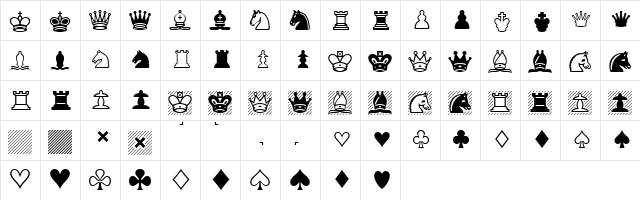
Complete Games and Sports 1 ATT Regular glyph index. Displaying only characters natively supported by Games and Sports 1 ATT Regular font.
Games and Sports 1 ATT brings high-energy athletic personality to the page - its confident, muscular forms are built for impact.